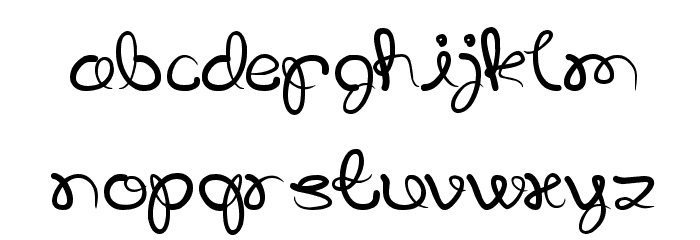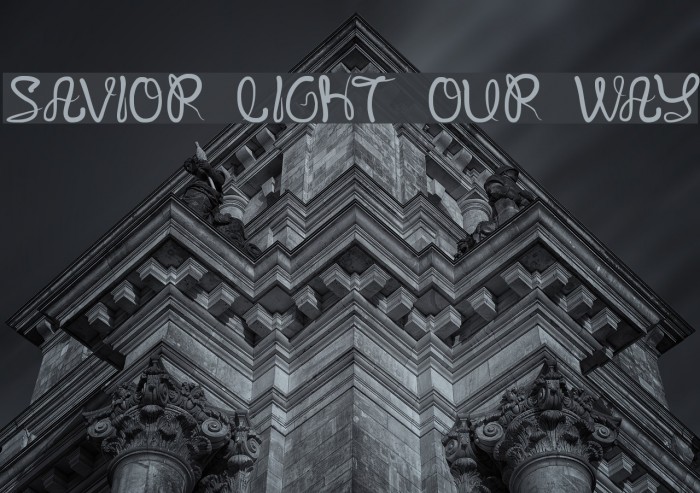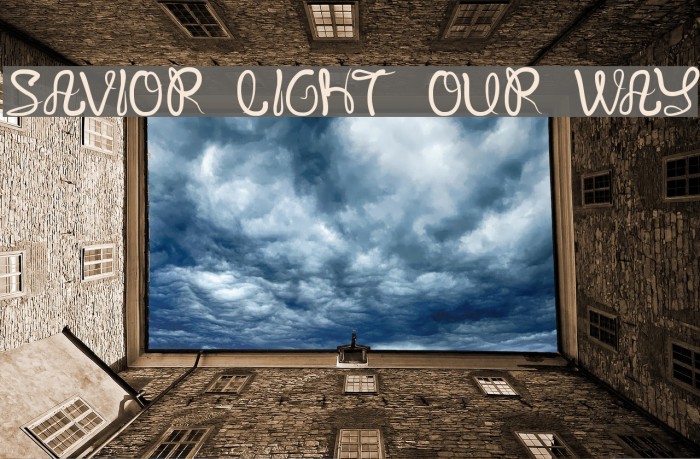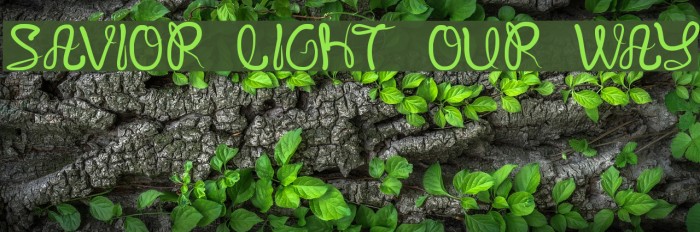
SAVIOR LIGHT OUR WAY Font
This font features a whimsical and artistic style, characterized by its flowing, interconnected strokes that create a sense of movement and fluidity. The uppercase letters exhibit a playful looped design, while the lowercase letters maintain a consistent, cursive-like appearance. The overall look is both elegant and dynamic, making it suitable for creative and expressive projects. The font's unique style is enhanced by its moderate contrast in stroke thickness, adding depth and visual interest. Its decorative nature makes it ideal for eye-catching headlines and artistic designs.
A whimsical, flowing font with interconnected strokes and a playful, artistic style.
- Proposed Projects: Ideal for creative projects such as invitations, greeting cards, artistic posters, and branding materials that require a unique and expressive touch.
- Use Case: Headlines, Artistic designs, Invitations